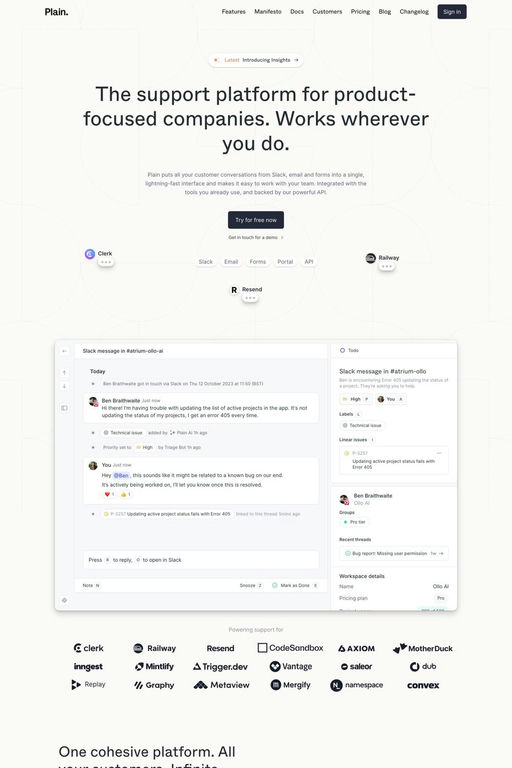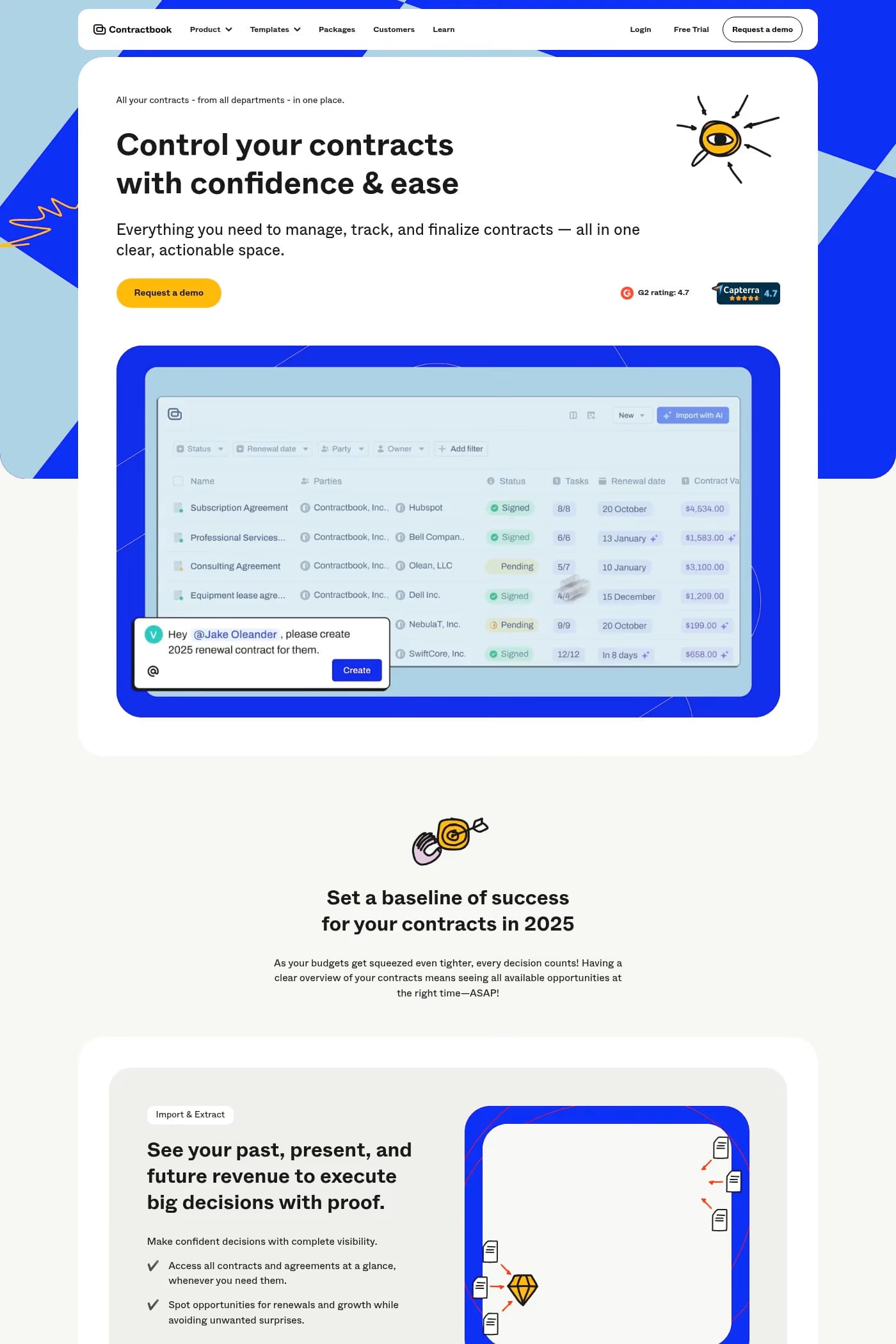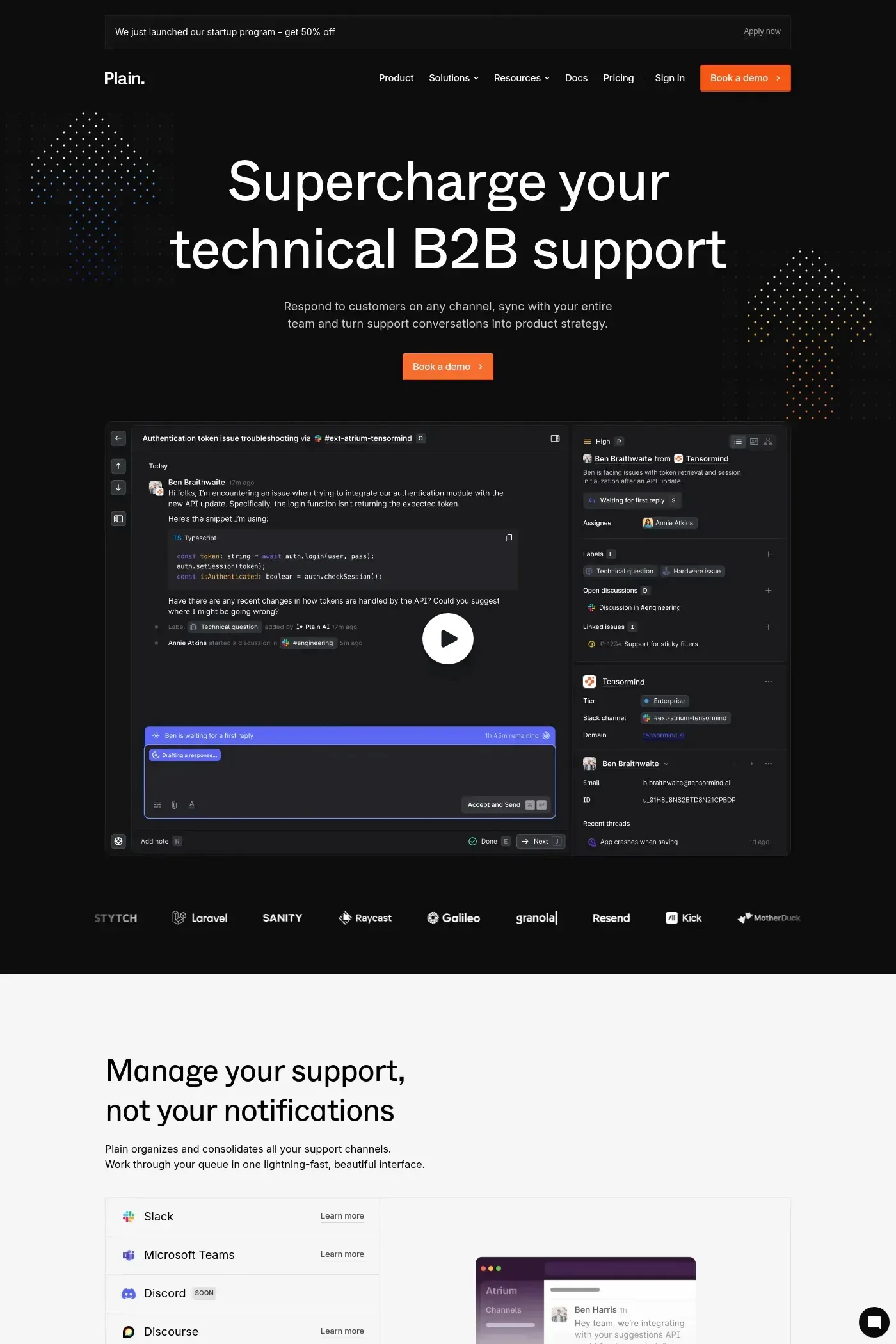
Whyte is a sans-serif typeface from Dinamo.
Fabian Harb drew the first version of ABC Whyte years ago, after coming across a type sample from the early heyday of grotesques during a bout of archival digging. A few years later, we noticed that the design had aged gracefully, and so our lead designer Erkin Karamemet took up the task of exploring new possibilities for it. Fourteen months of dedicated work and 27,040 characters later, two related-yet-visually-distinctive font families materialized: ABC Whyte and ABC Whyte Inktrap.